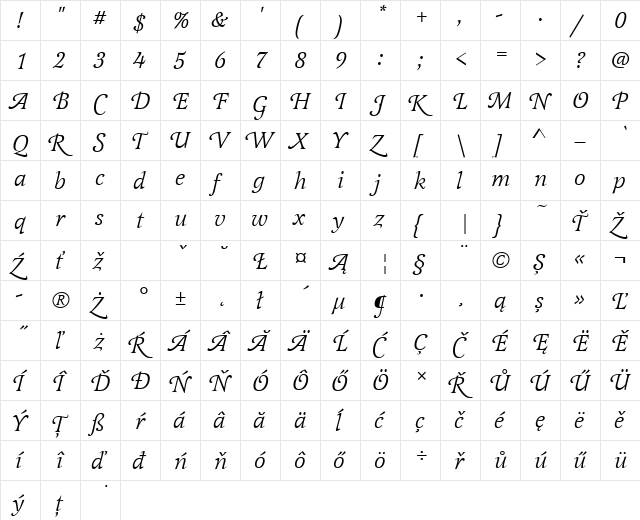
LatienneSwaTEE Italic
Design Context for LatienneSwaTEE Typeface
LatienneSwaTEE takes a measured approach to typography — its balanced proportions and neutral character make it a reliable workhorse for both digital and print work. Its italic angle brings a sense of urgency and motion to the letterforms.
Pro Tip: Use LatienneSwaTEE for emphasis, pull quotes, and subheadings where its slanted energy can add rhythm to the layout.